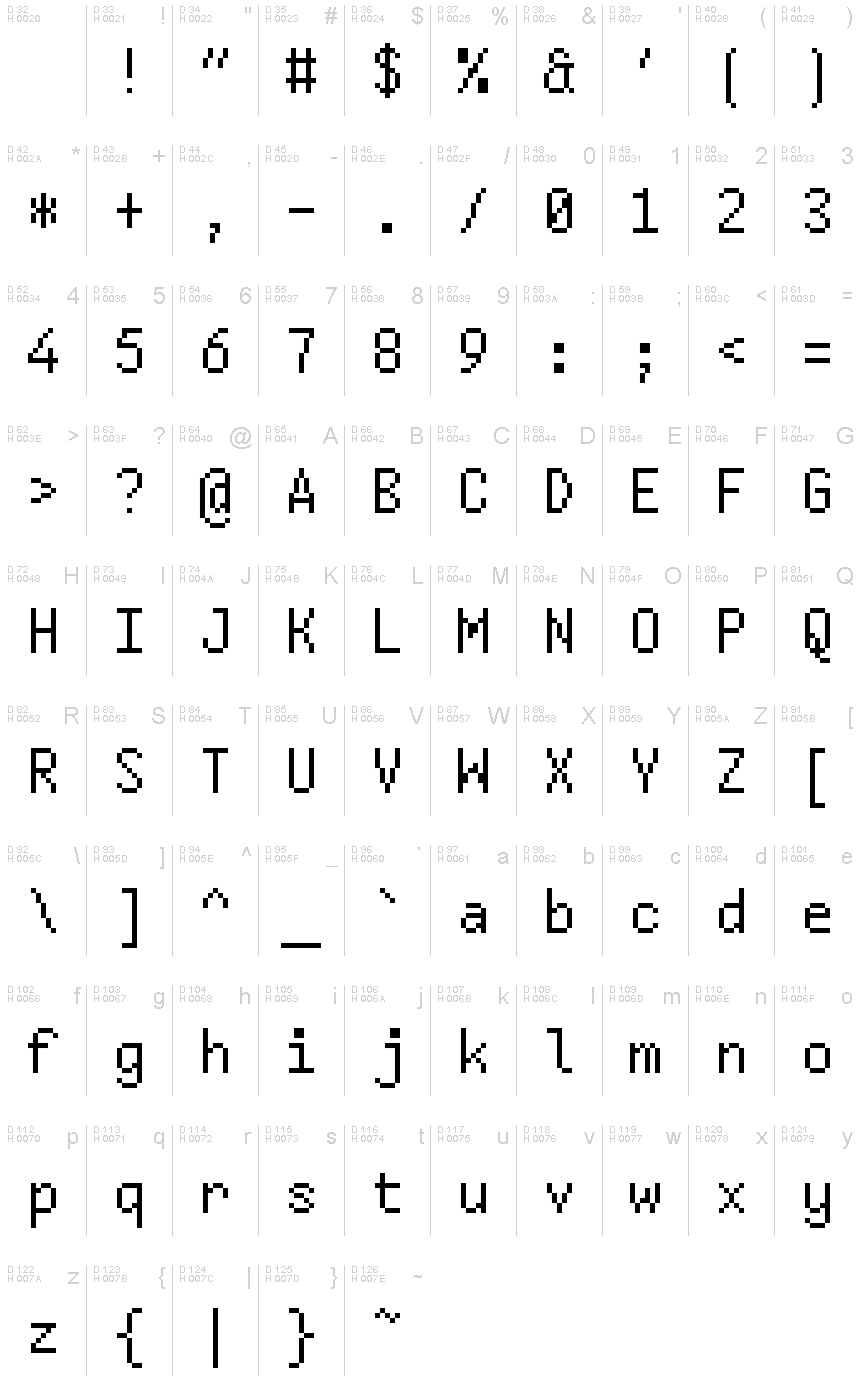
Bodge Regular
Bodge is a monospace font with both italics and oblique. The italic portion was inspired by Operator Mono, which generated quite some controversy within the font nerd community!